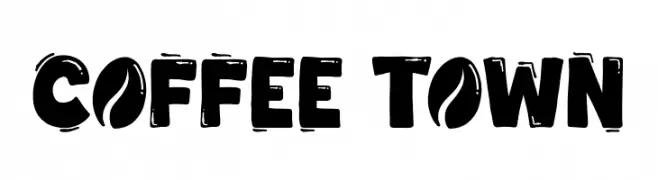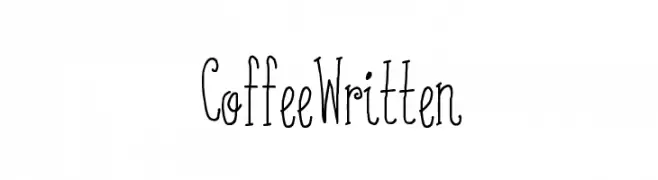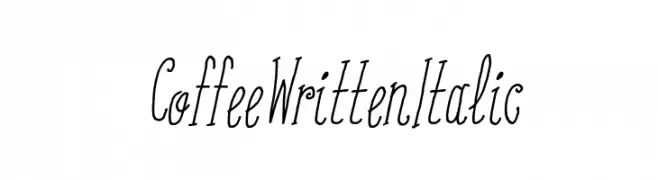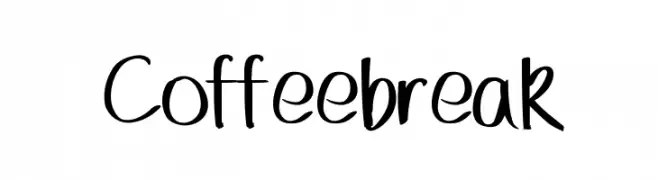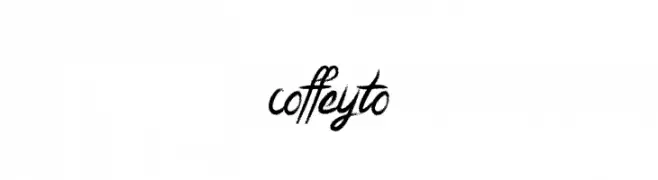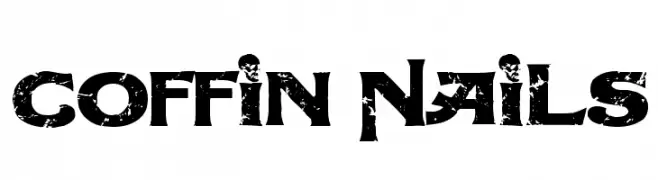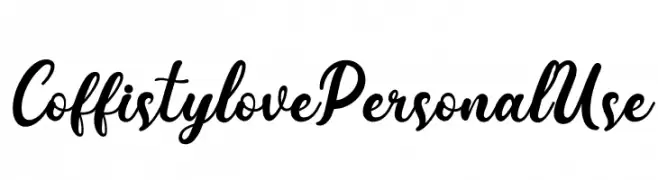
A bold, playful font with a hand-drawn, artistic style.
A whimsical, handwritten font with tall, narrow characters and a playful tone.
A playful, handwritten font with tall, narrow letters and a whimsical style.
A handwritten, italic font with elongated, flowing characters.
A playful, handwritten font with smooth curves and a casual, friendly style.
A playful, handwritten font with rounded edges and consistent thickness.
A bold, decorative font with vintage flair and intricate patterns.
A dynamic, cursive script font with fluid, interconnected strokes.
A flowing, cursive font with elegant, sweeping strokes and a handwritten appearance.